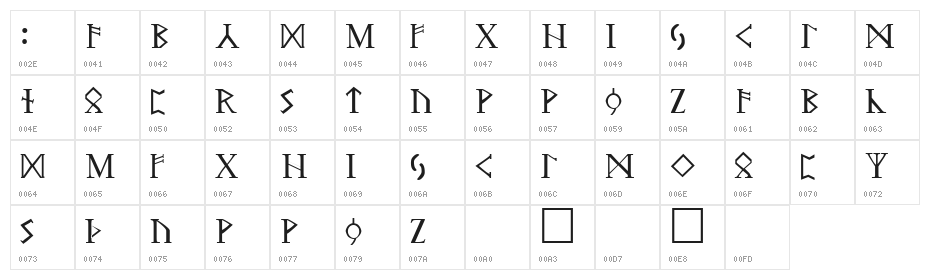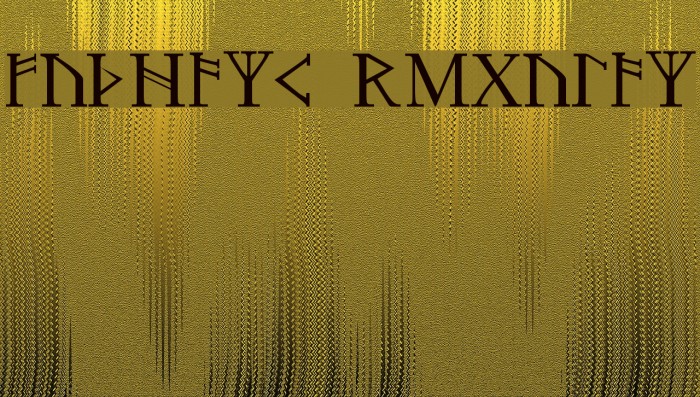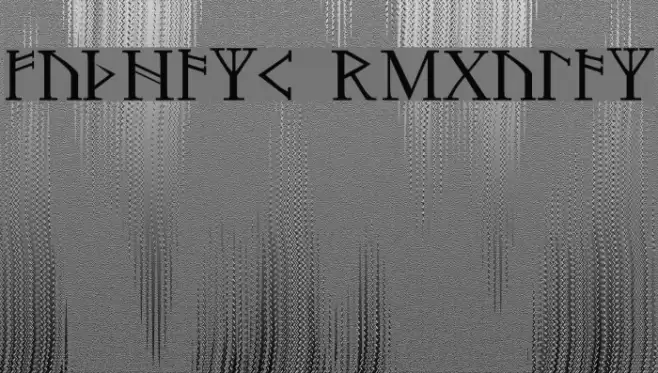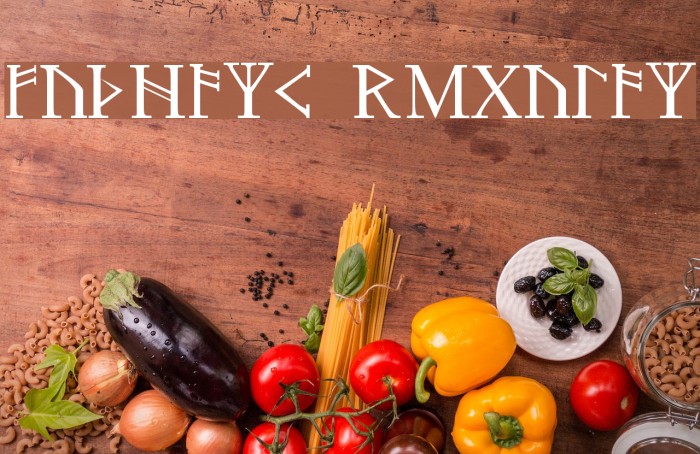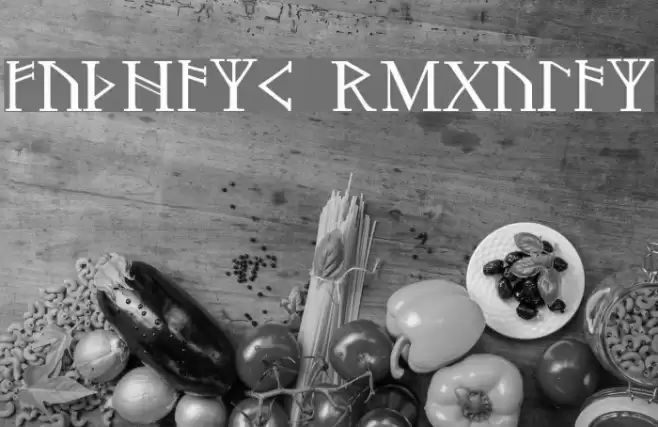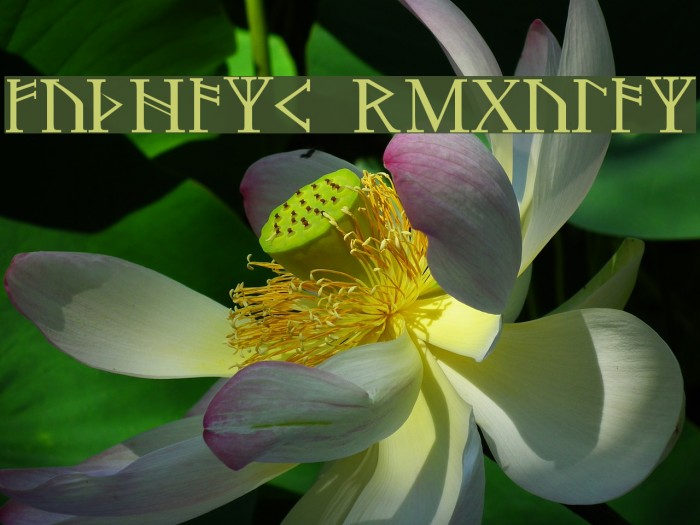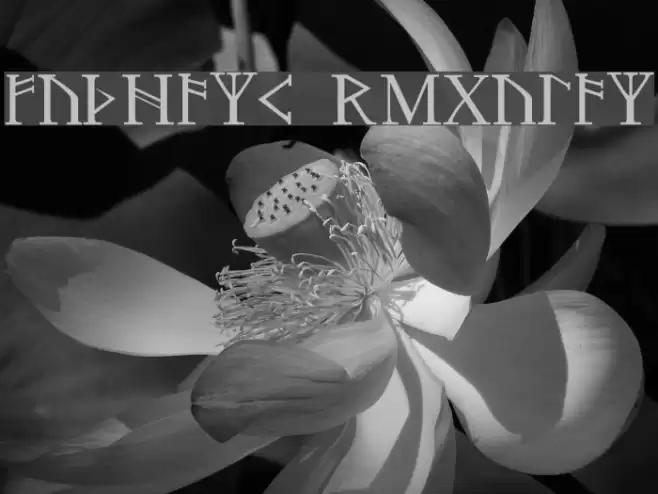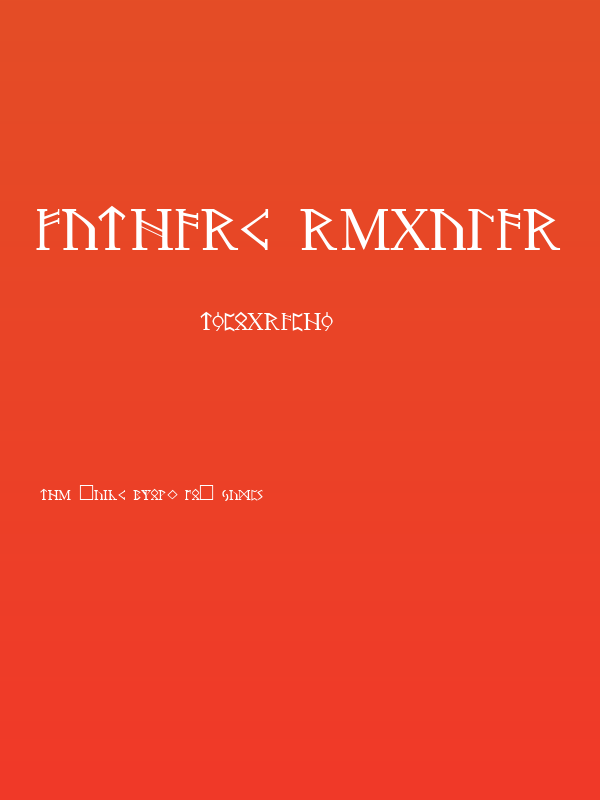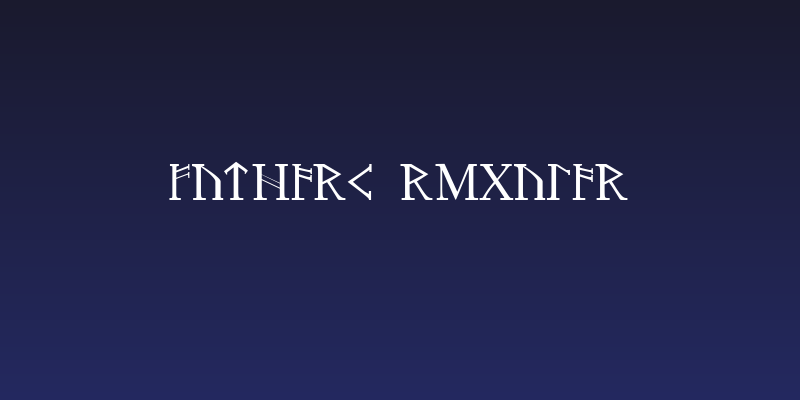
This font is inspired by ancient runic alphabets, featuring angular and geometric shapes that evoke a sense of mystery and antiquity. The characters are constructed with sharp lines and distinct angles, reminiscent of carvings on stone or wood. The uppercase and lowercase letters maintain a consistent style, emphasizing the historical and cultural roots of the design. The numerals and special characters follow the same aesthetic, ensuring a cohesive look across all elements. This font is ideal for projects that aim to capture a historical or fantasy theme, providing a unique and striking visual impact.
Overall StyleVintage
Use CaseLogos, Headlines, Themed designs
Proposed ProjectsIdeal for fantasy-themed designs, historical recreations, game interfaces, and book covers.